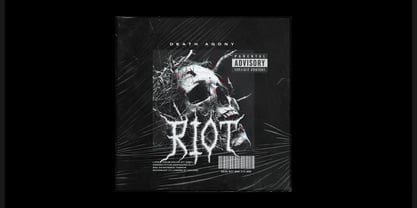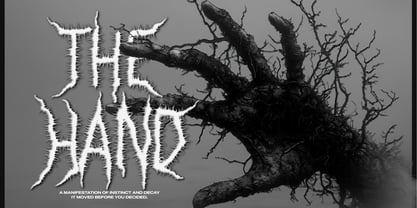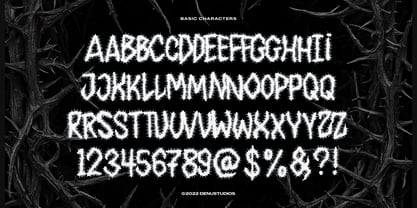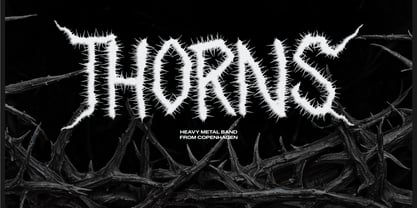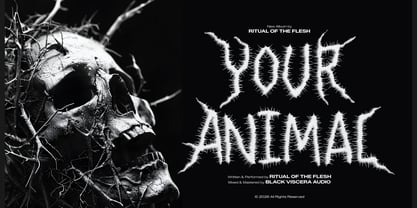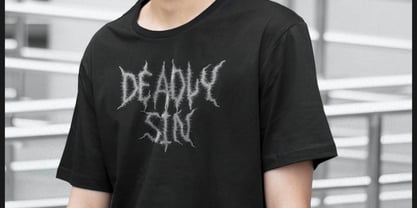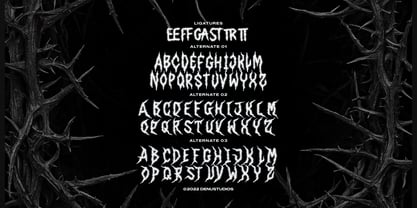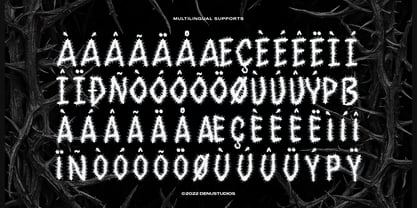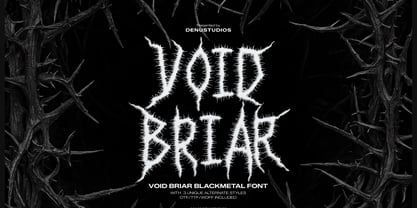
Void Briar
by Denustudio
The Void Briar Font Family was designed by Dede Nugraha and published by Denustudio. Void Briar contains 1 styles. More about this family
Void Briar | Black Metal Font, from Denustudios, suitable for any projects such as: logos, branding projects, homeware designs, product packaging, mugs, quotes, posters, shopping bags, t-shirts, book covers, name card, invitation cards, greeting cards, label, photography, watermark, special events, and all your other lovely projects that need Black Metal a taste.
Designers: Dede Nugraha
Foundry: Denustudio